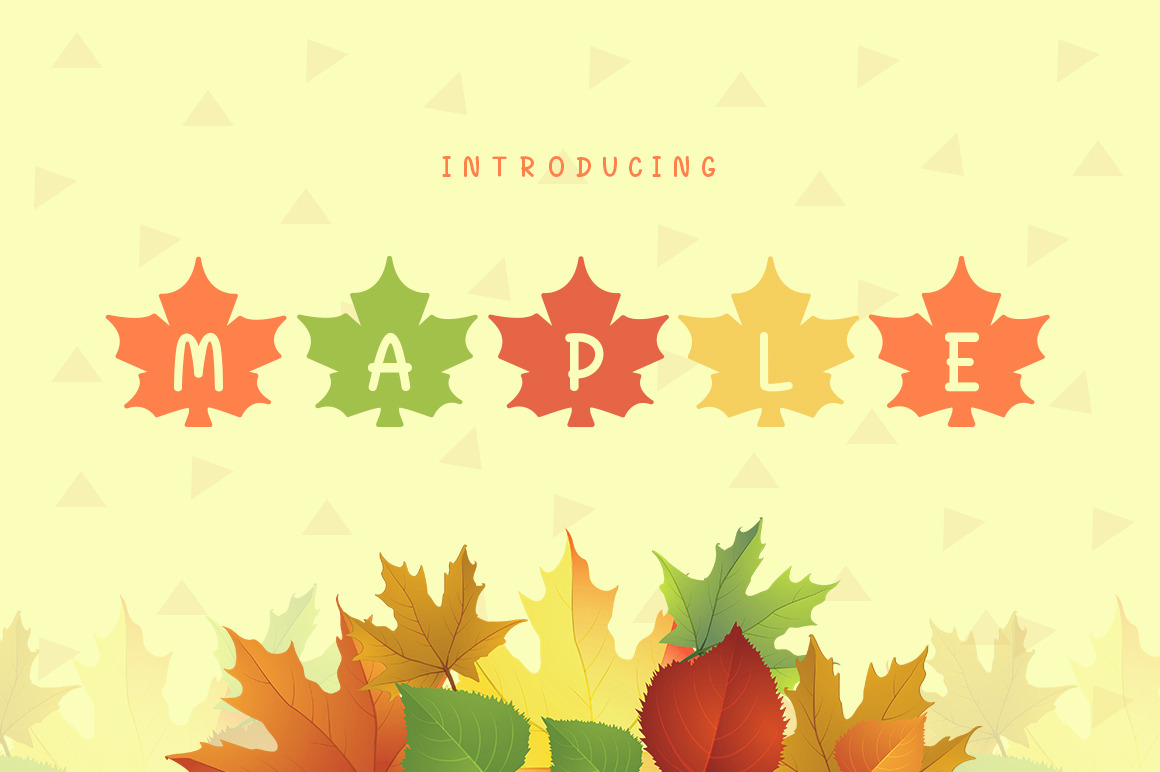
Maple Font
Maple Font is a dislay fun & unique typeface. Maple Font suitable for logo, branding, greeting card, poster and any design that you create.